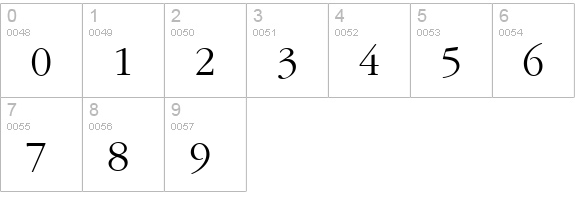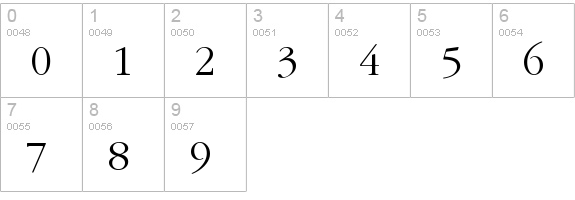
Garfeld-Nova-Light Font Details
Garfeld-Nova-Light is a refined, elegant variant in the Garfeld typeface family \xE2\x80\x94 well suited to elegant body text, refined sub-headings, and luxury branding.
Garfeld-Nova-Light font is a modern and sleek typeface that exudes elegance and sophistication. Its clean lines and rounded edges make it perfect for a wide range of design projects, from branding to editorial design. The light weight of the font adds a touch of delicacy and refinement to any text. What's even better is that Garfeld-Nova-Light font is completely free to download at FontsMarket.com. Whether you're a professional designer or a hobbyist looking to spruce up your projects, this font is a fantastic addition to your collection. Don't miss out on the opportunity to enhance your designs with this stylish and versatile typeface. Download Garfeld-Nova-Light now and elevate your creations to the next level.